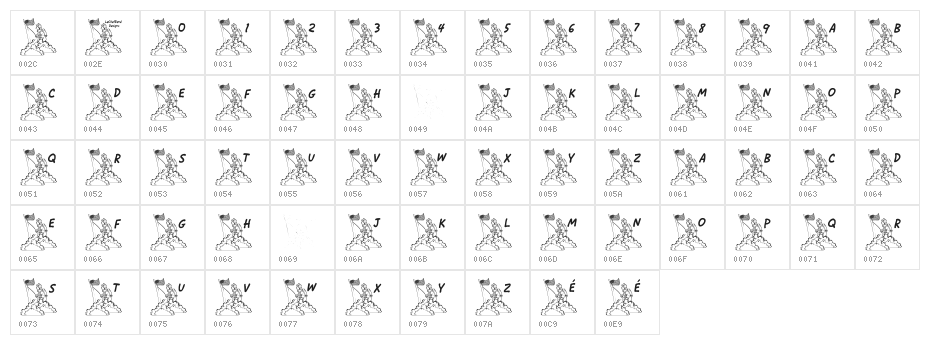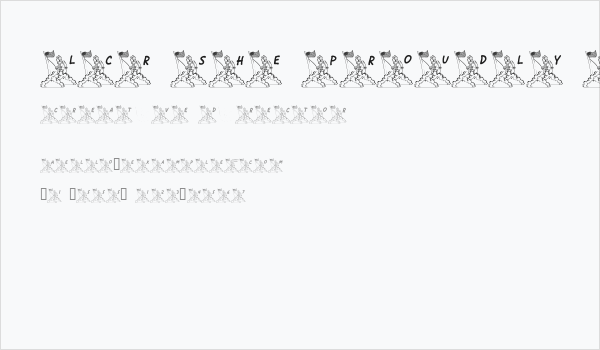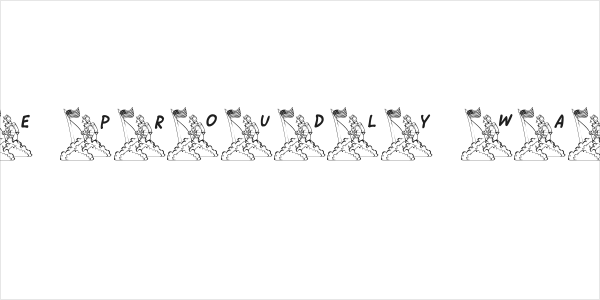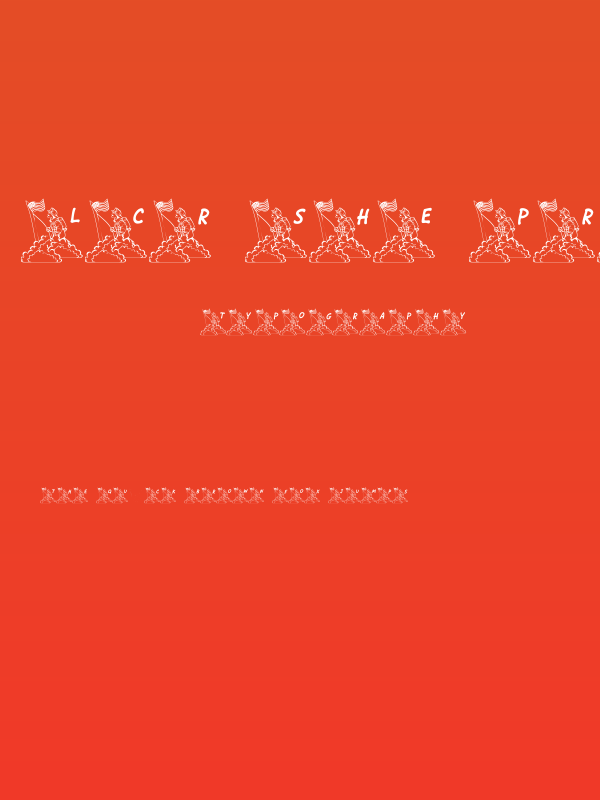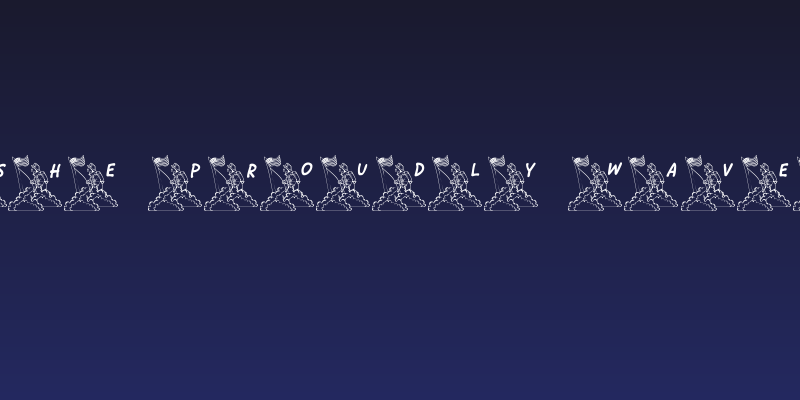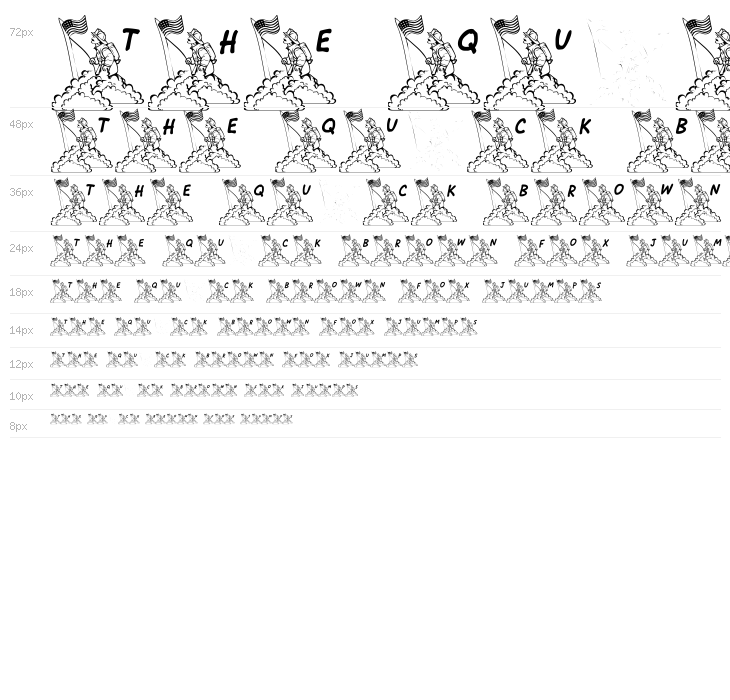
LCR She Proudly Waves LSF Font
LCR She Proudly Waves LSF Description
This font features a unique and decorative style where each character is accompanied by an illustration of a figure proudly waving a flag. The letters are bold and clear, with a playful yet patriotic theme. The characters are well-defined, making them suitable for display purposes. The font combines artistic elements with traditional letterforms, creating a distinct visual appeal. The accompanying illustrations add a layer of complexity and thematic depth, making it ideal for projects that require a strong visual statement.
Use CaseHeadlines, Posters, Thematic Designs
Proposed ProjectsIdeal for patriotic-themed posters, event invitations, or educational materials about history or national celebrations.